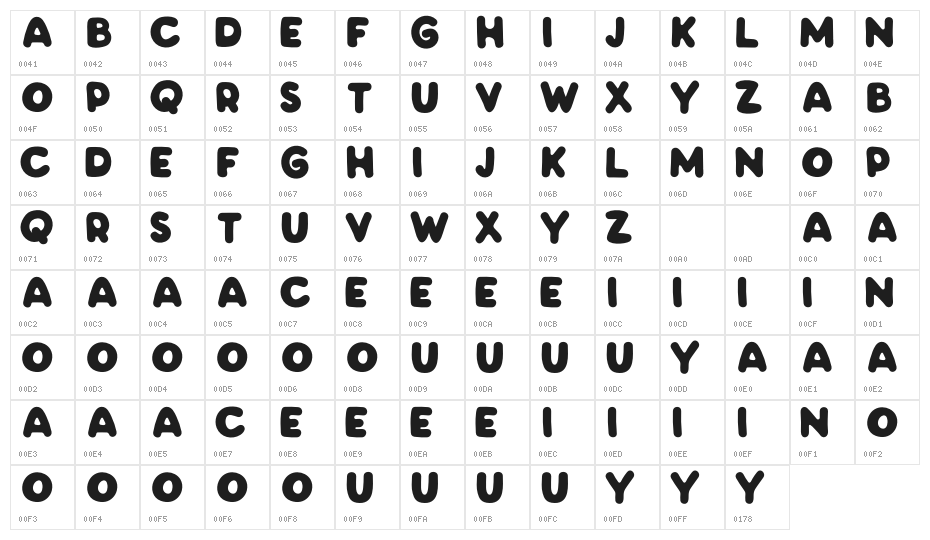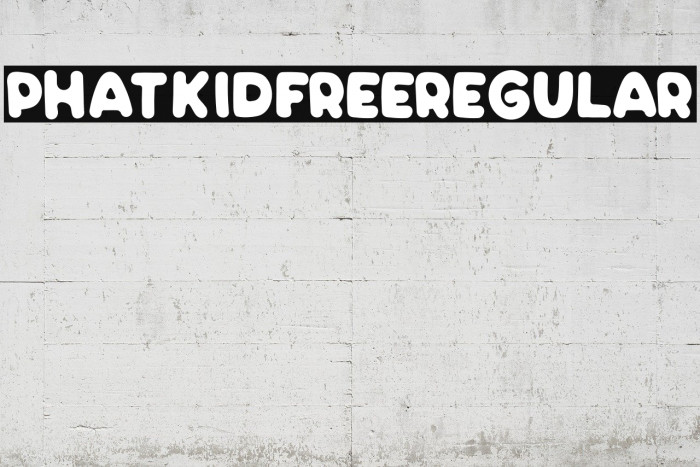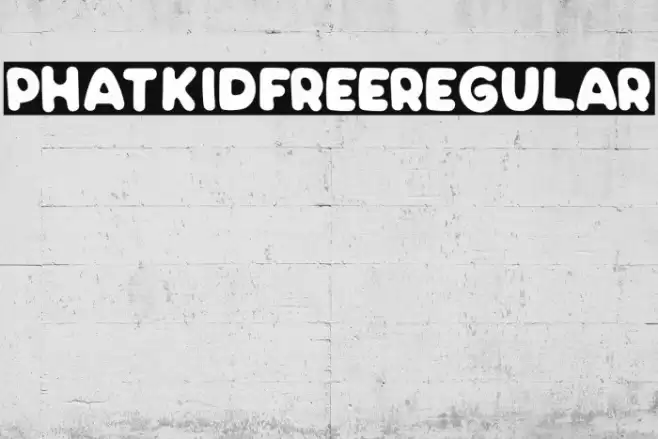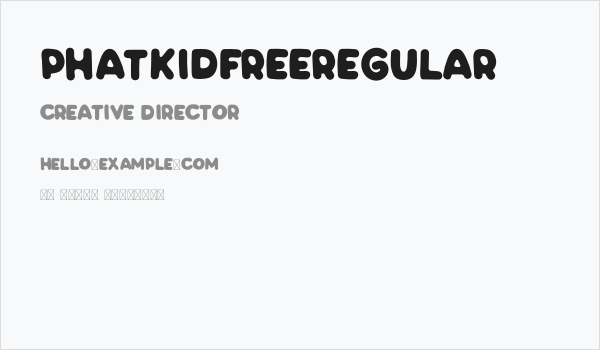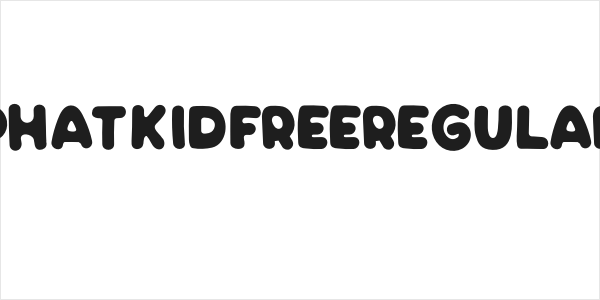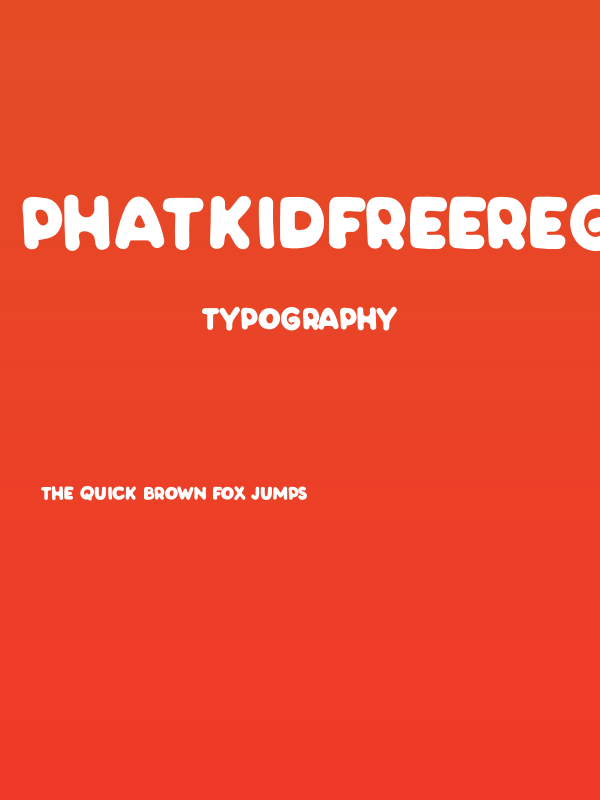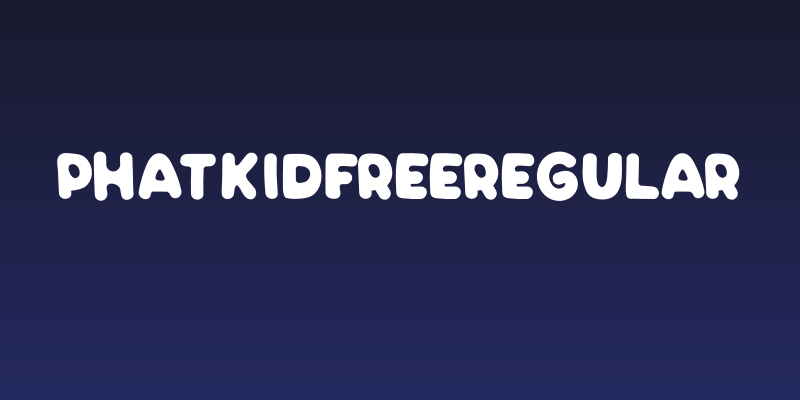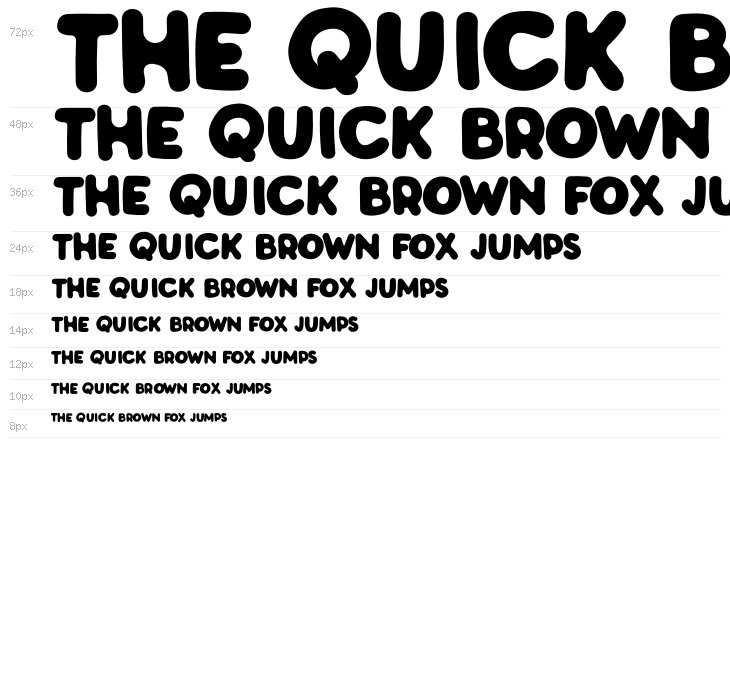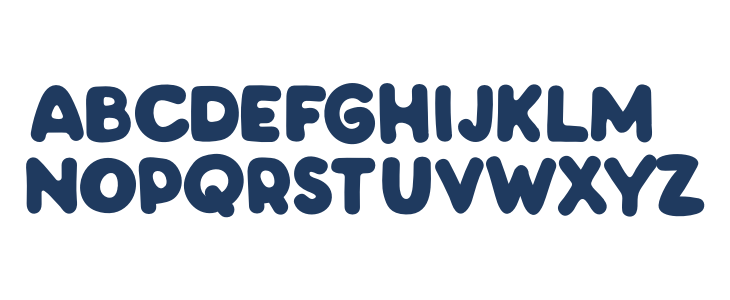
PHATKIDfreeRegular Font
PHATKIDfreeRegular Description
This font features a bold, playful design with rounded, thick strokes that give it a friendly and approachable appearance. The characters are uniformly bold, with a consistent weight that maintains readability while adding a touch of whimsy. The rounded edges soften the overall look, making it suitable for informal and fun contexts. The uppercase letters are particularly prominent, with a slight bubble-like quality that enhances the font's playful nature. This style is perfect for projects that aim to convey a sense of fun and creativity.
| Proposed Projects | Ideal for children's books, playful branding, posters, and casual invitations. |